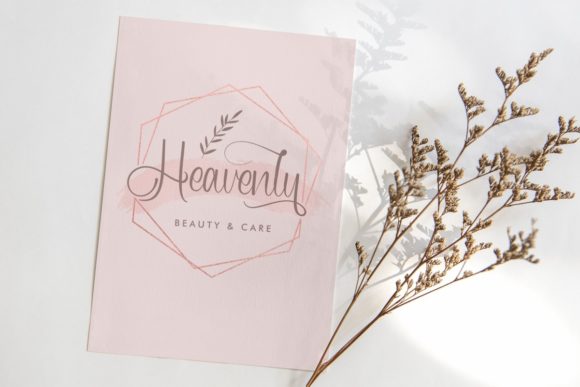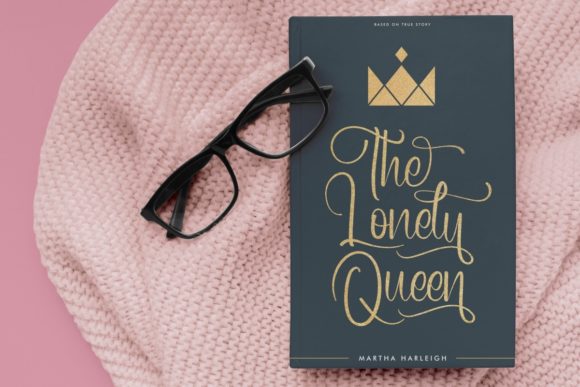
Awesome Girl Font
db-ku.com - Script & Handwritten -- Awesome Girl is a thin lettered and graceful script font. It will add a luxury spark to any design project that you wish to create! This font is PUA encoded which means you can access all of the amazing glyphs and ligatures with ease!